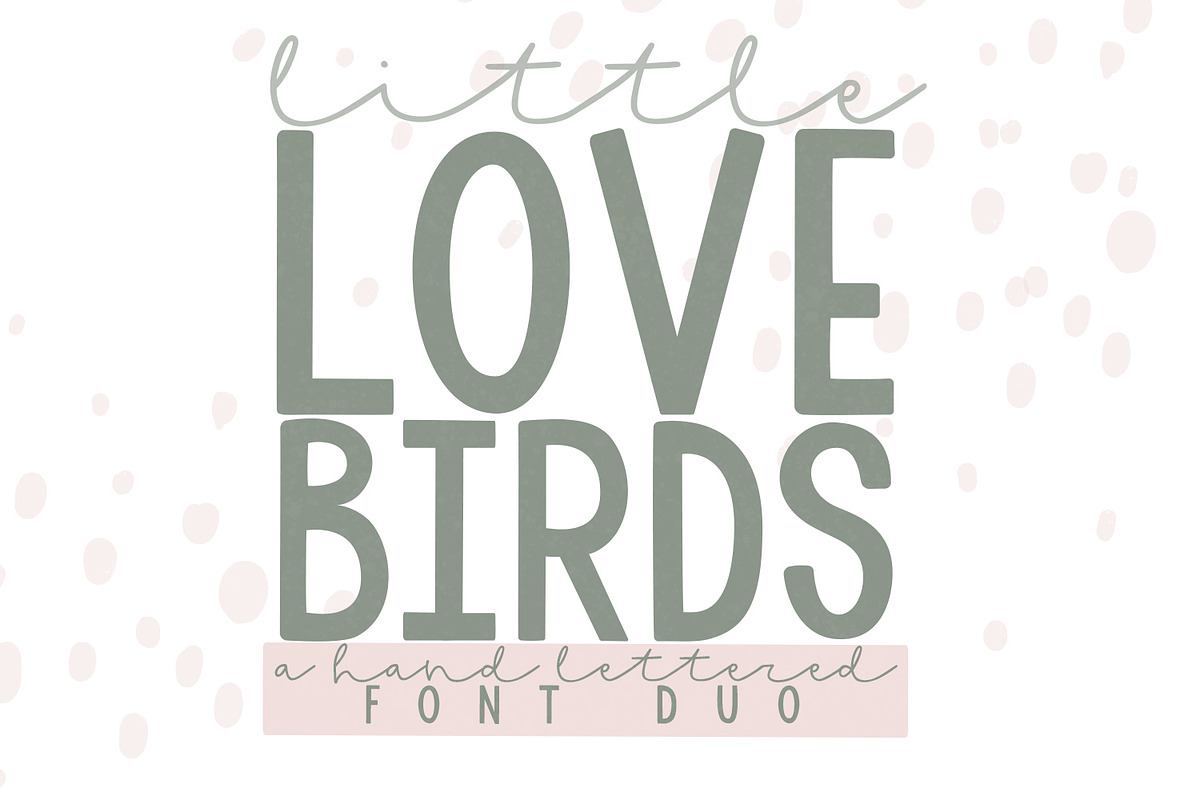
Add a touch of romance and charm to your designs with Little Love Birds Font Duo Free Download. This delightful pair of fonts—featuring a playful script and a clean sans—works in perfect harmony to create elegant, heartwarming visuals for weddings, invitations, logos, quotes, and social media content.
Whether you're designing something sweet and sentimental or aiming for a modern yet whimsical vibe, this font duo gives you the flexibility to mix and match styles with ease. It's especially ideal for projects that need a soft, handcrafted feel with professional polish.